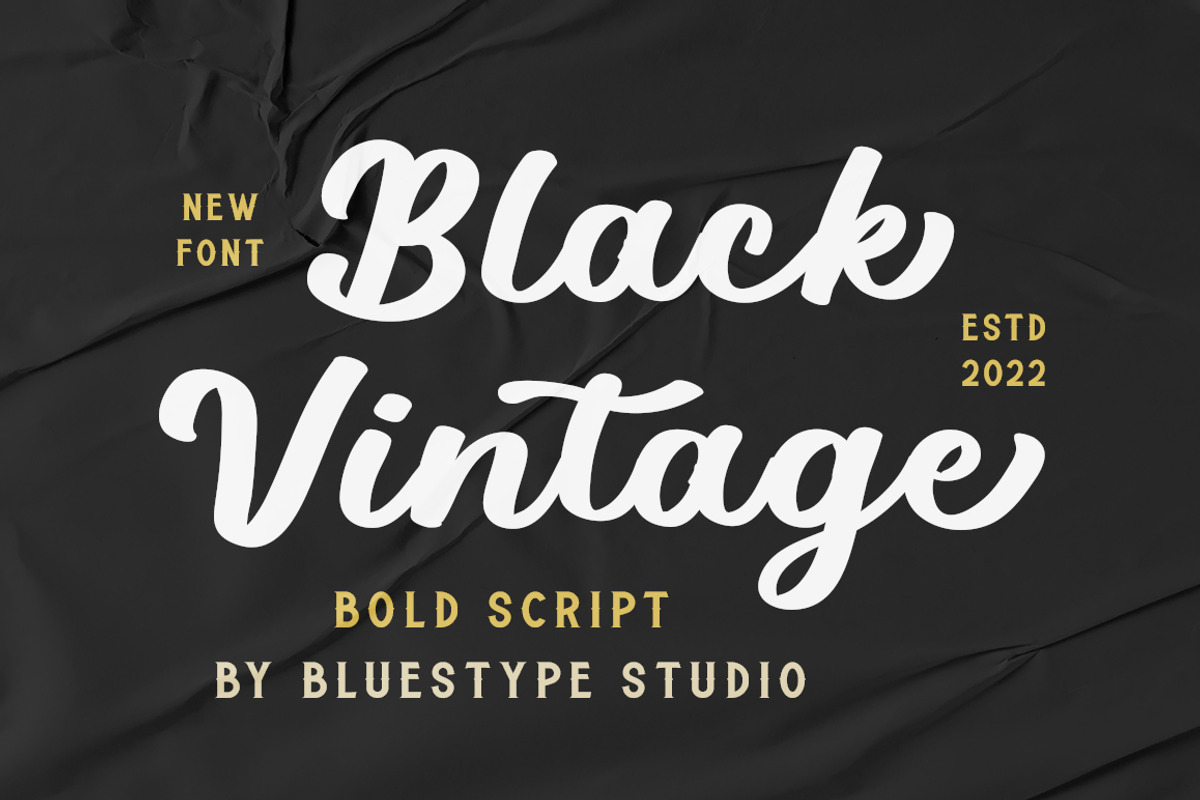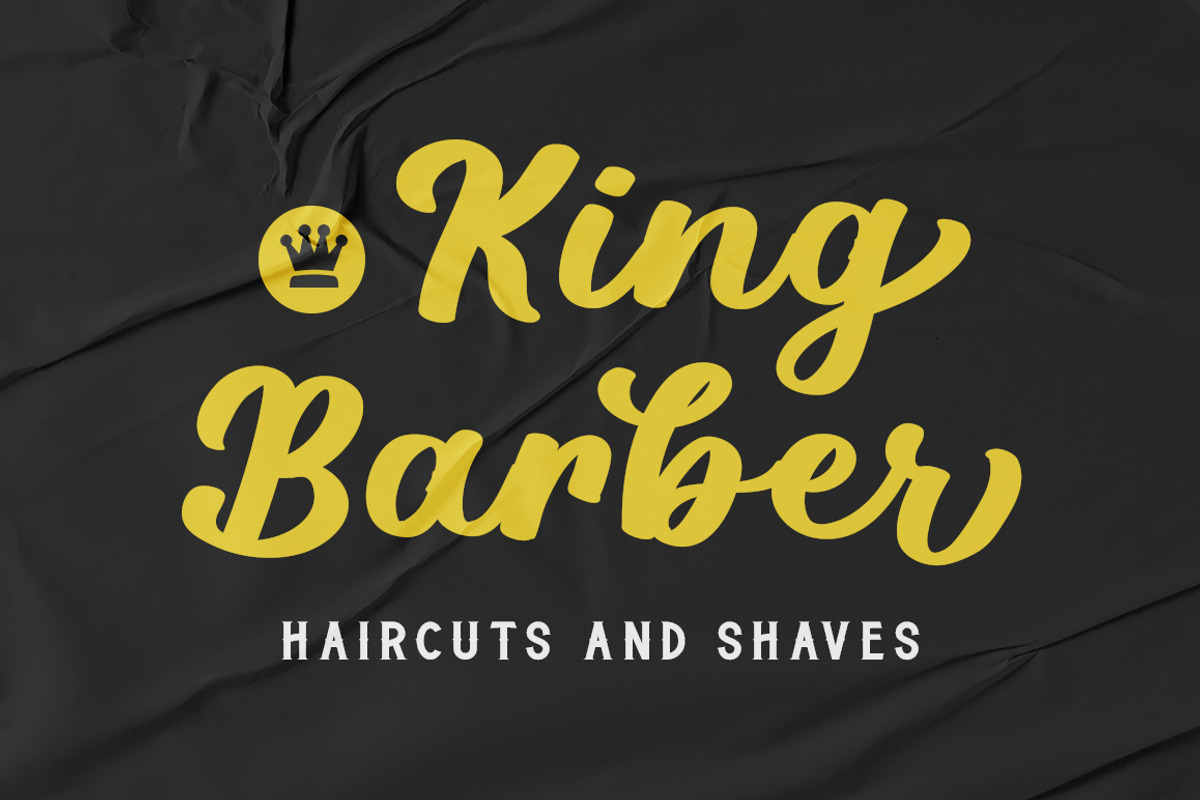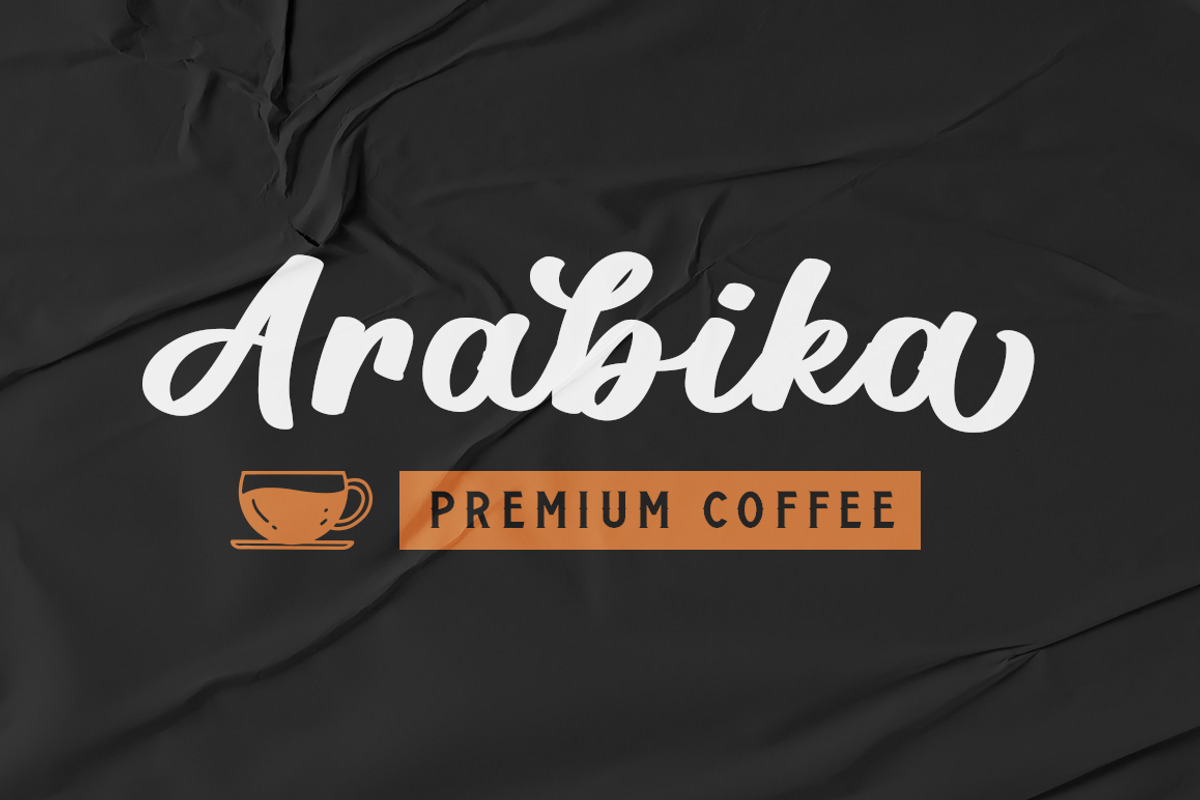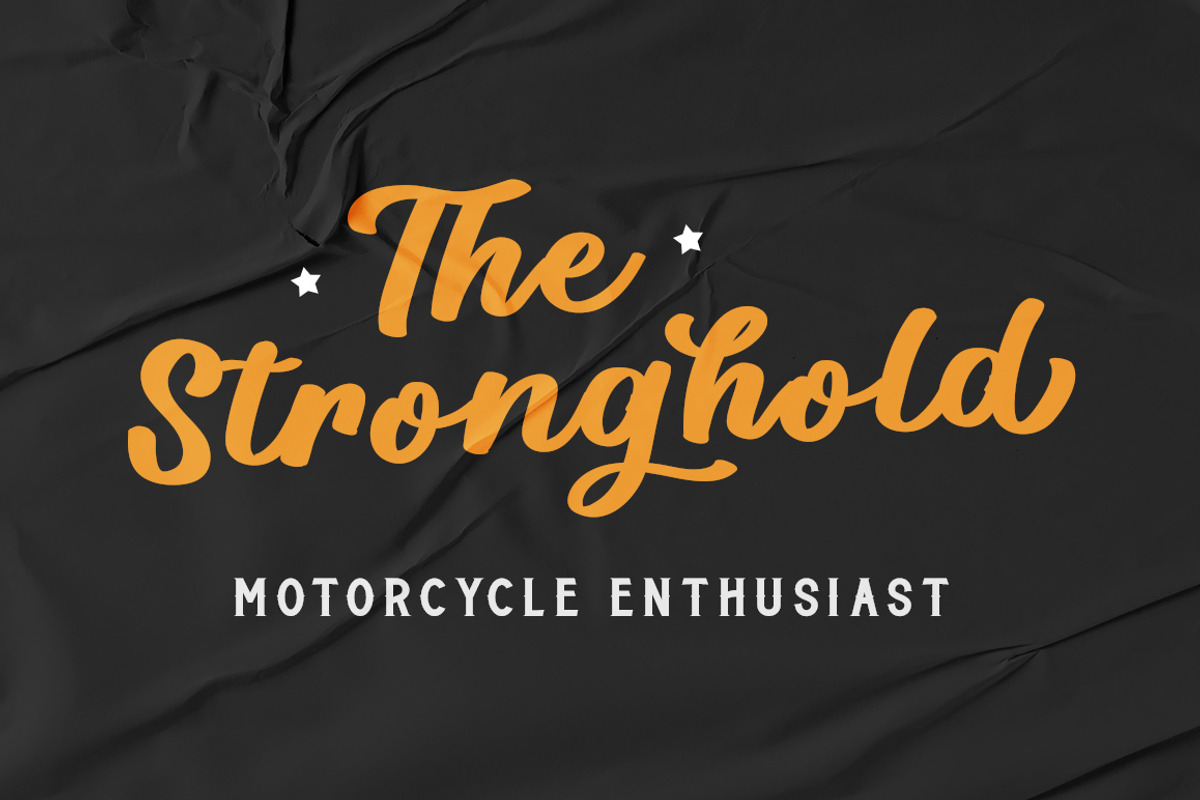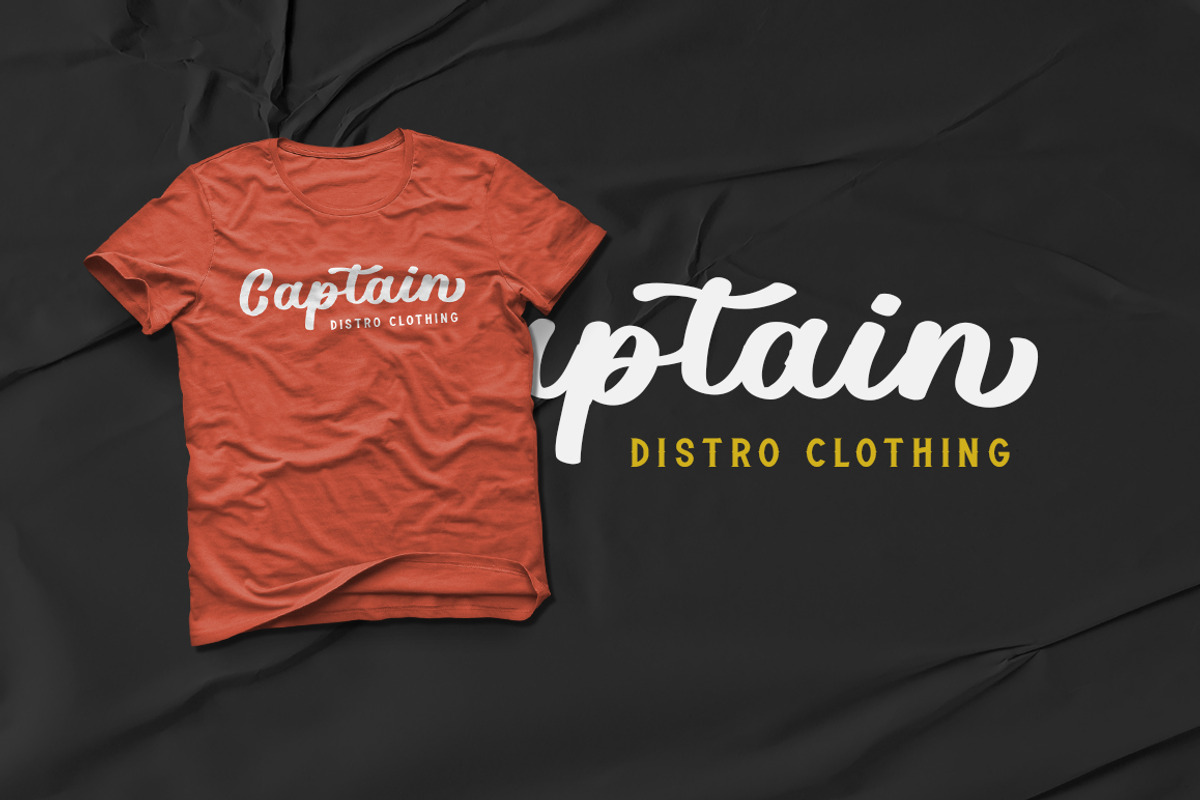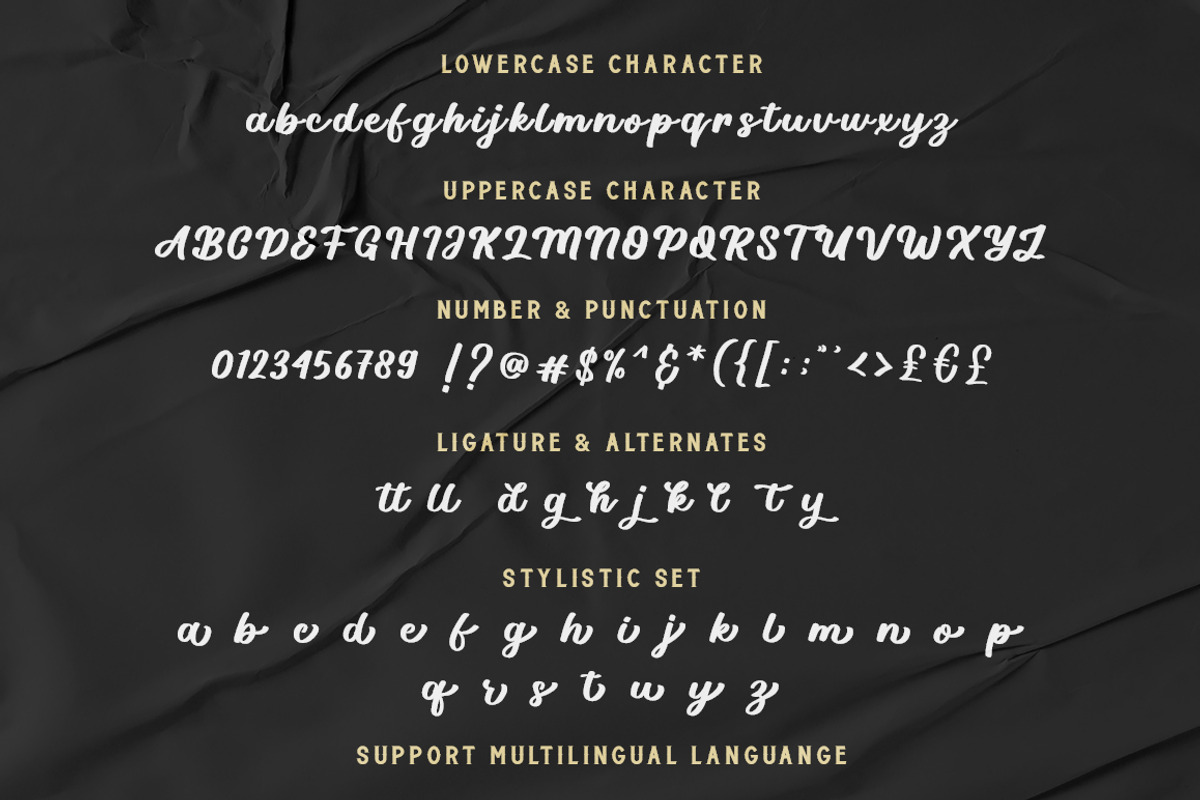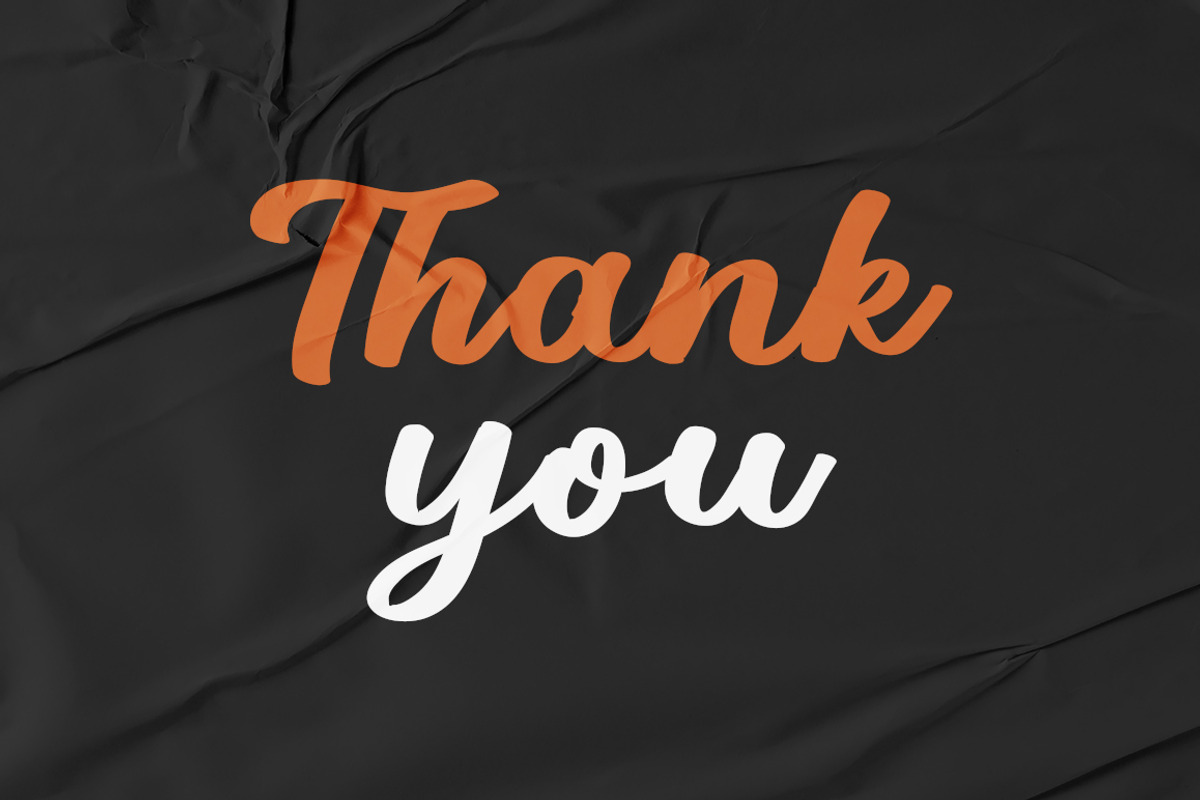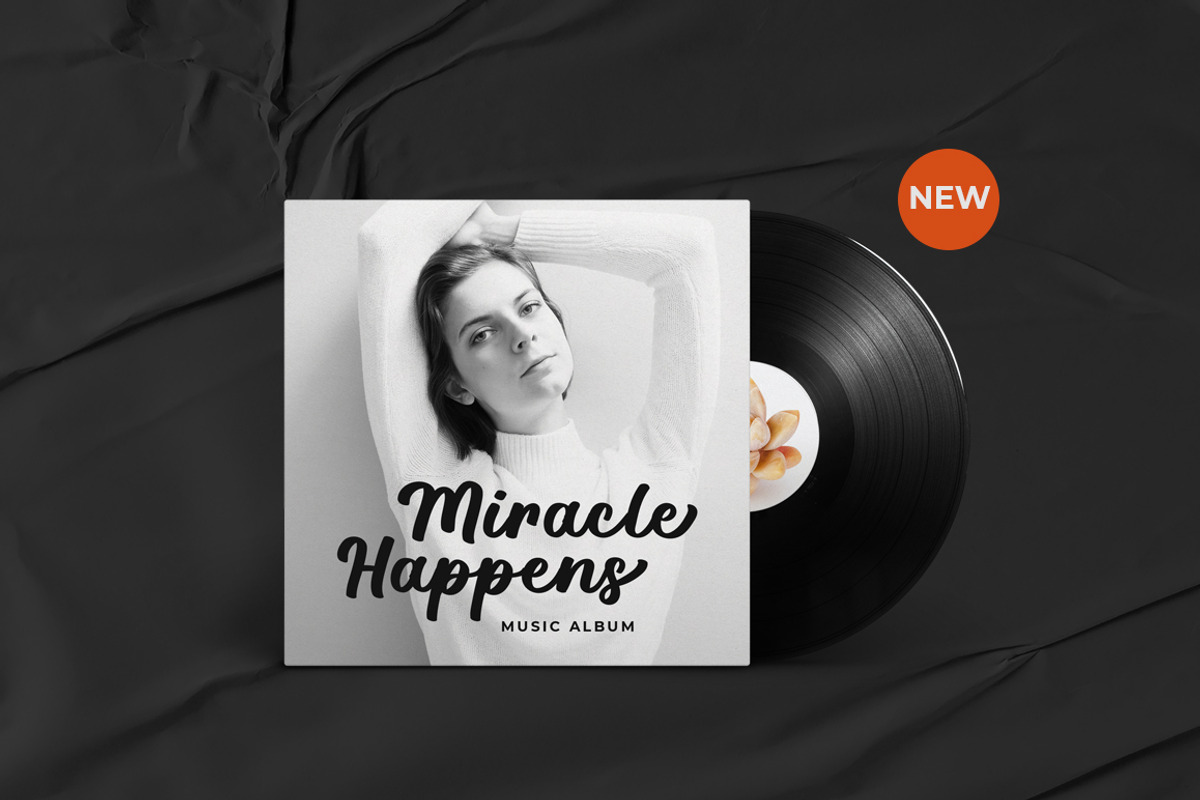
Black Vintage - Bold Script
Hello ! This is our latest product called Black Vintage. Black Vintage is a vintage script calligraphy with beautiful and bold characters.
This font is suitable for t-shirt designs, logotype, branding, quotes, social media, watermarks, clothing, youtube videos.
- Stylistic Set
- Stylistic Alternate
- Multilingual Support.